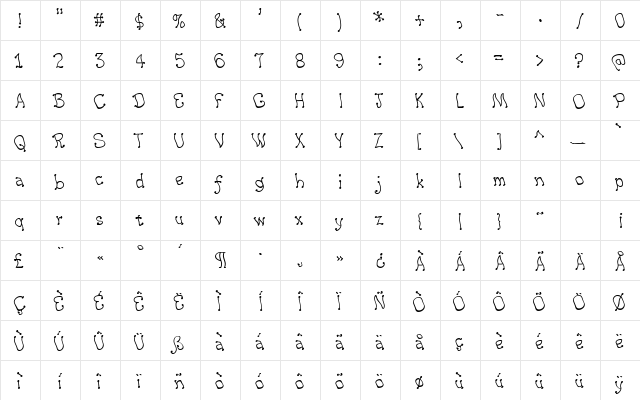
ArgentaBobbWig Regular
Design Context for ArgentaBobbWig Typeface
ArgentaBobbWig is a composed and adaptable typeface that performs quietly and consistently across a wide range of design contexts.